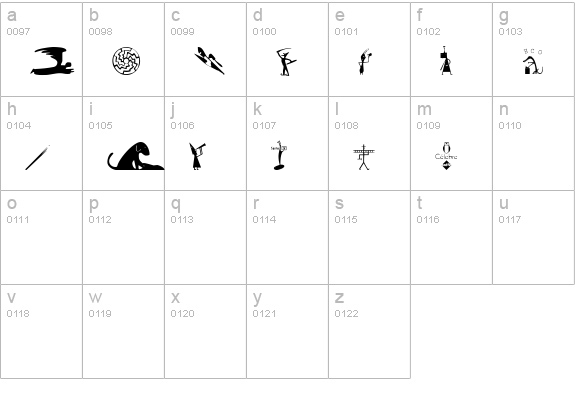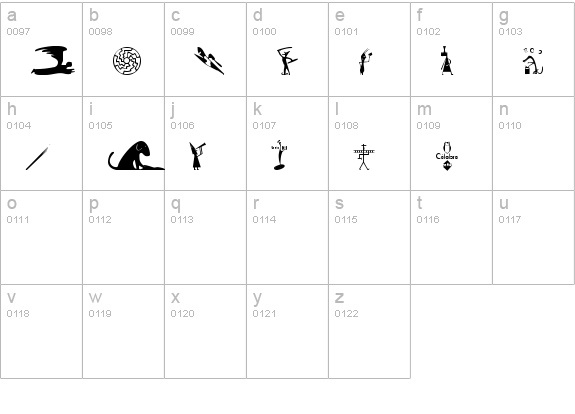
Guto Lacaz PW Font Details
Guto Lacaz PW font is a unique and creative typeface that exudes modernity and sophistication. Its sleek lines and stylish design make it perfect for a wide range of projects, from branding to editorial design. This versatile font is sure to add a touch of elegance to any project. The best part? Guto Lacaz PW font is completely free to download at FontsMarket.com. This means you can access this stunning typeface without any cost, making it a fantastic option for designers on a budget or anyone looking to add a touch of flair to their work. Don't miss out on the opportunity to elevate your designs with this beautiful font – download Guto Lacaz PW today!